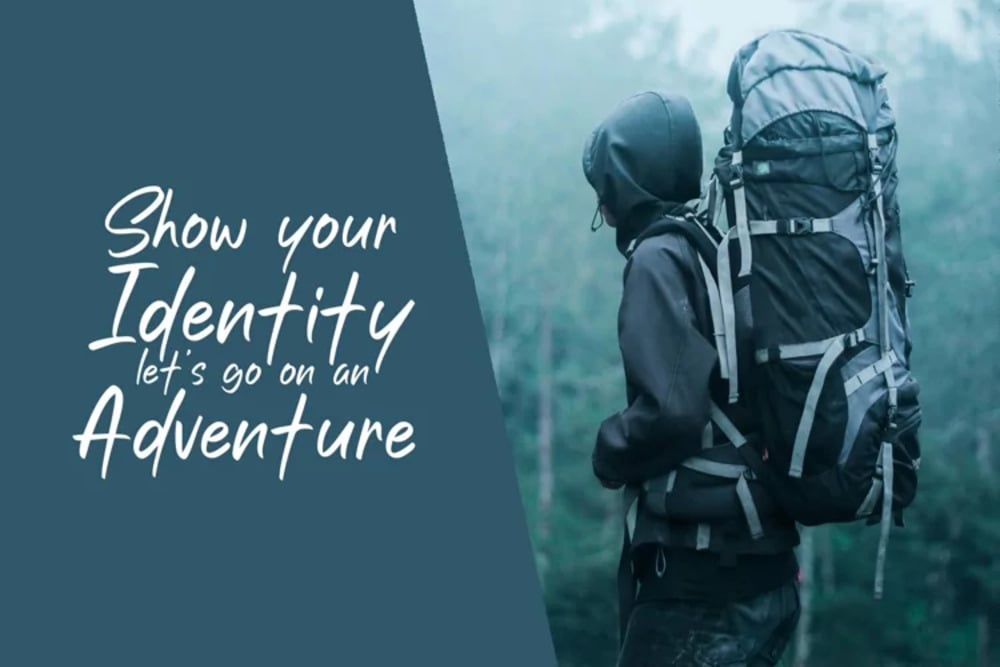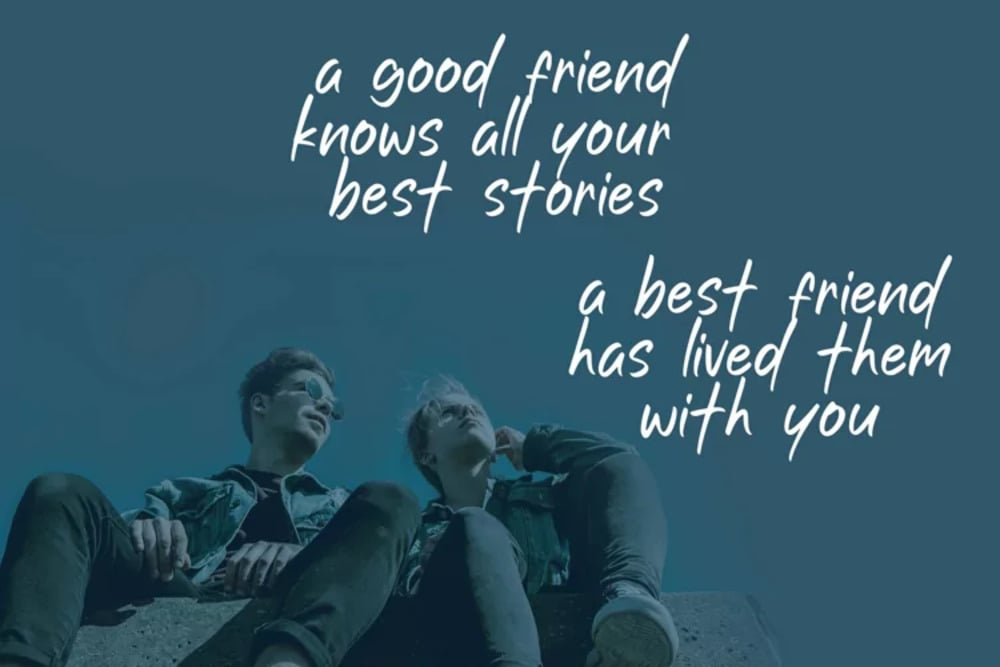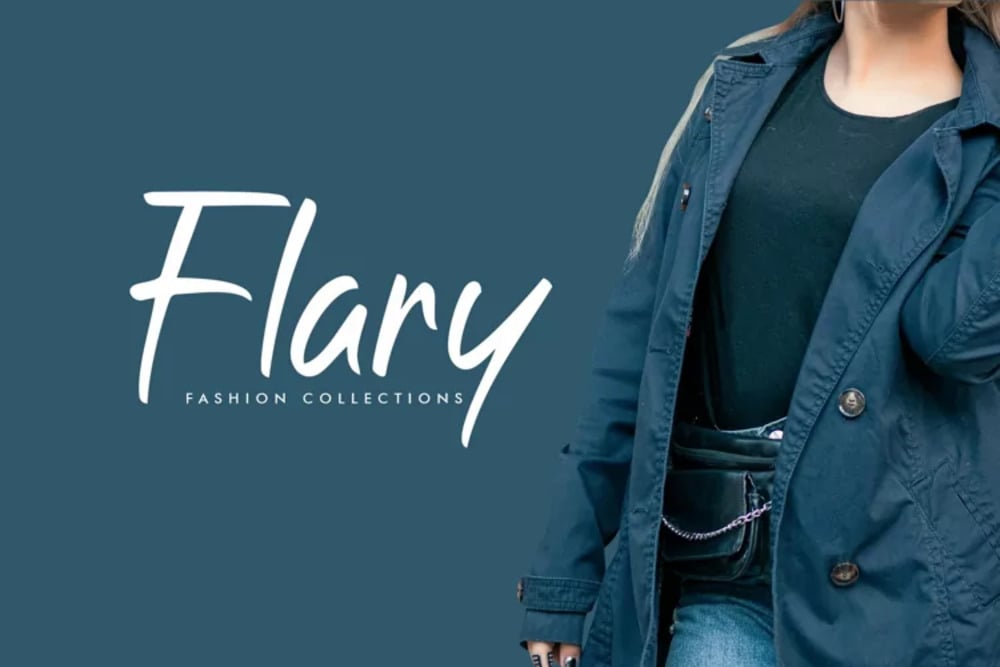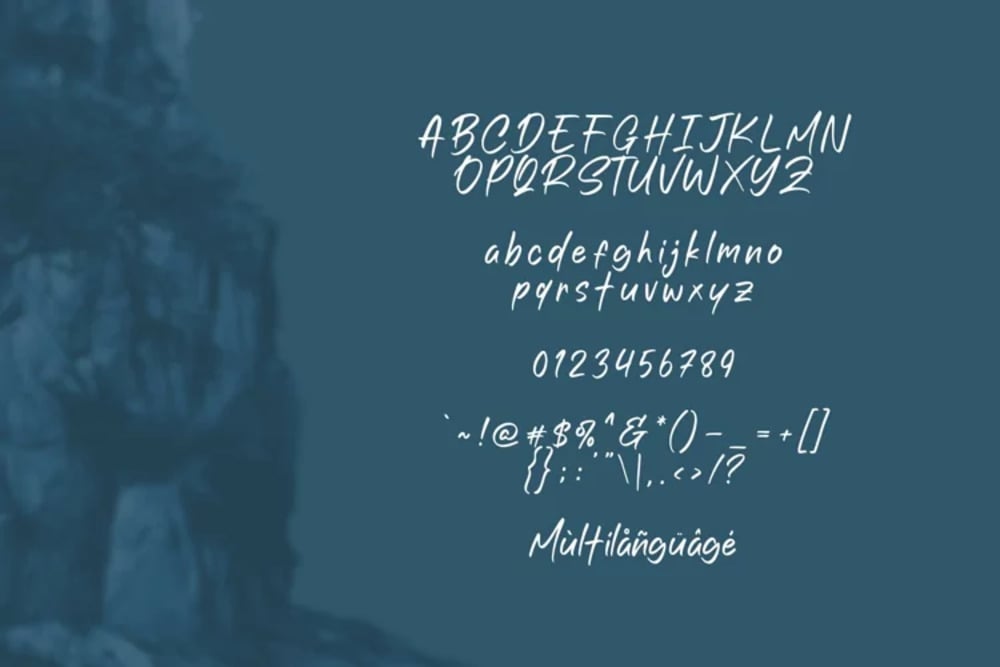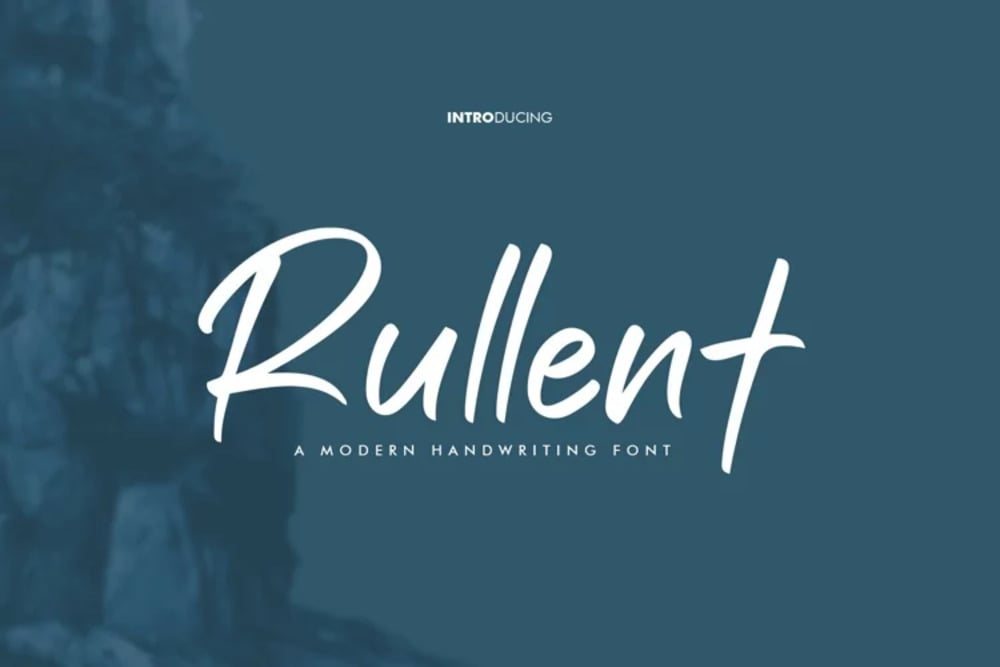
Rullent Font
Rullent is a modern and minimalist sans-serif font with clean lines and a geometric structure. Its versatile design makes it suitable for a wide range of applications, from branding and web design to editorial layouts and packaging. Rullent’s neutral yet stylish aesthetic conveys a sense of sophistication and clarity, making it a reliable choice for projects that demand a clean and contemporary look. It’s both functional and visually appealing.